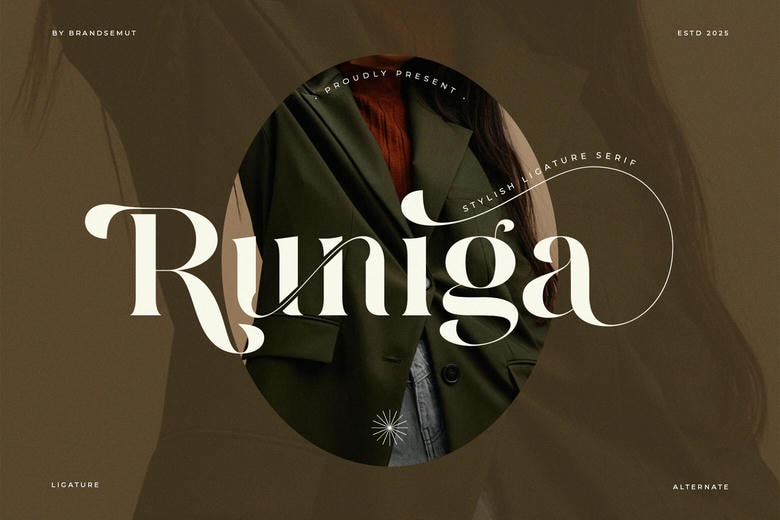
Runiga Font
Runiga is a sleek and modern serif font with the use of refined ligatures and graceful curves that would suit the high-end branding, fashion editorials, wedding invitation, and expensive pack. Runiga resembles an adequate combination of both old-fashioned and modern style; it includes upper and lowercase letters, alternative glyphs, and special stylistic ligatures that help to improve any layout.
The font will be perfect in the design world of a designer who wants a fancy serif, that is charismatic in its bold appearance. Be it logos, titles of magazine titles, social media contents or beautiful product packaging — Runiga complements all of them with a beautiful touch of something old.
Runiga Serif Font